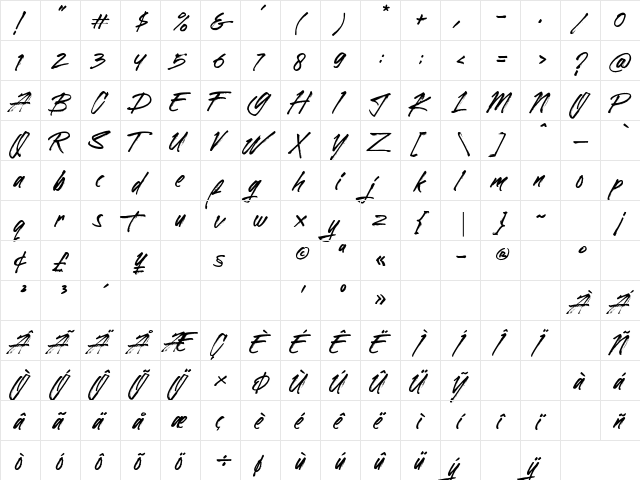
Gottam Regular
Design Context for Gottam Typeface
Gottam is a composed and adaptable typeface that performs quietly and consistently across a wide range of design contexts.
Pro Tip: Pair Gottam with a font of contrasting weight or personality to build a more expressive typographic hierarchy.